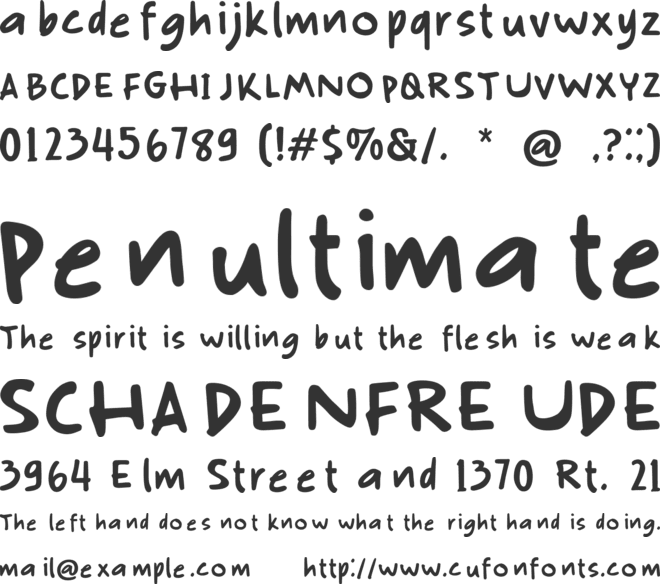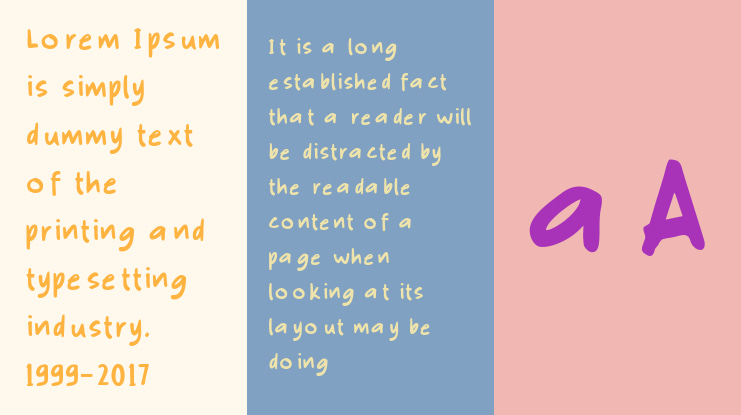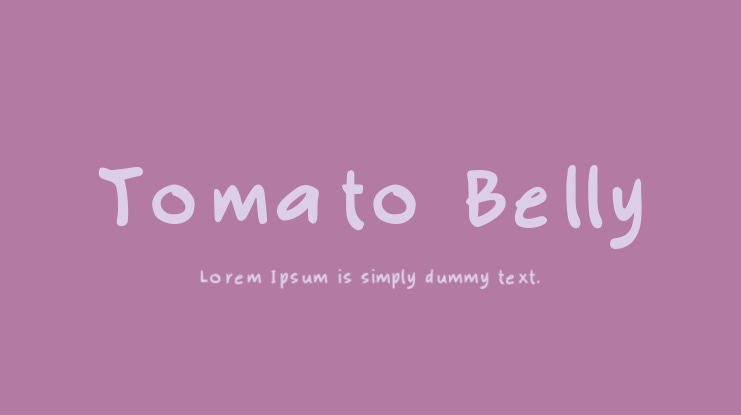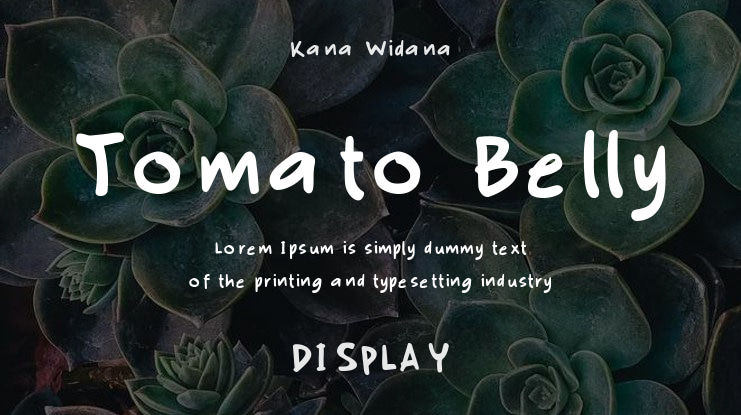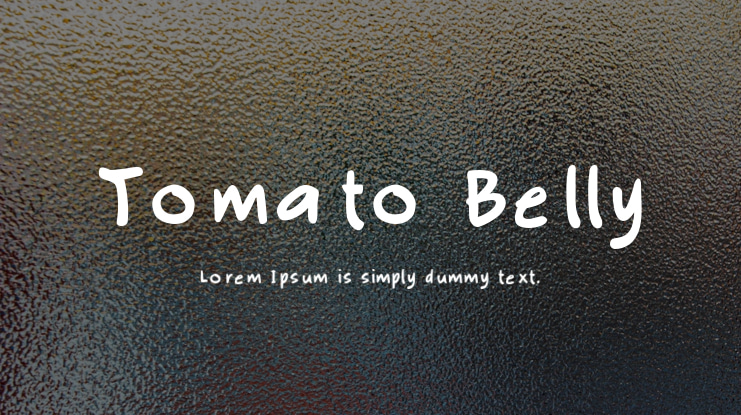
Tomato Belly Font
Kana Widana
Introducing "Tomato Belly" - a charming handwritten font that moves gracefully across the page, evoking the playful essence of a child's imagination.